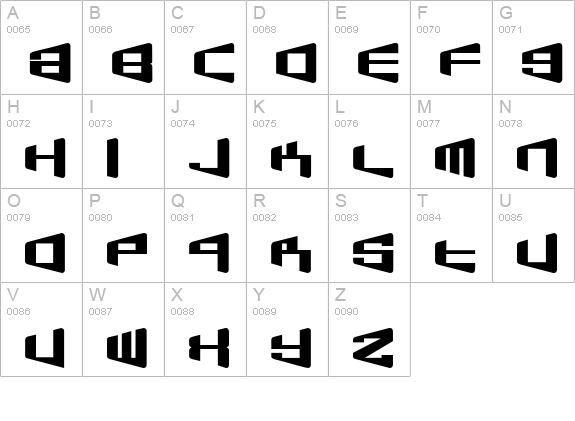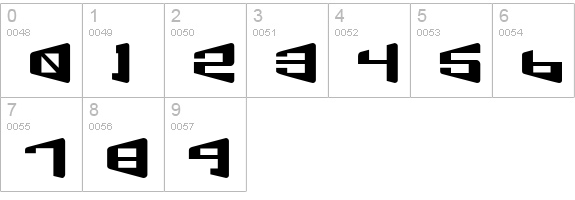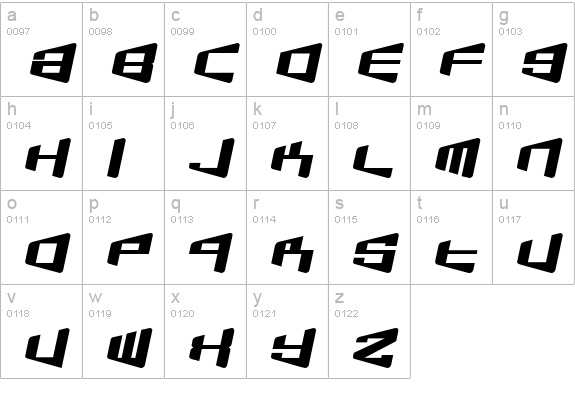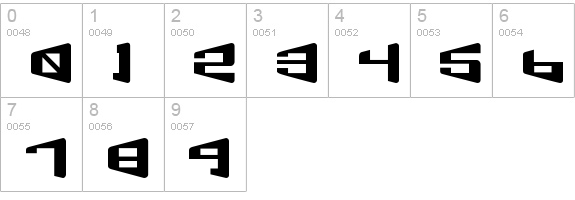
BeamShip font is a modern and futuristic typeface that will transport your designs to another dimension. With sleek lines and sharp edges, this font exudes a sense of space-age sophistication. Whether you're designing for science fiction projects, tech startups, or cutting-edge branding, BeamShip is the perfect choice to add a touch of innovation to your work. What's even better is that BeamShip font is available for free download at FontsMarket.com. This means you can easily access this unique font and elevate your design projects without breaking the bank. Don't miss out on the opportunity to enhance your creations with the captivating style of BeamShip font. Download it today and let your creativity take flight!